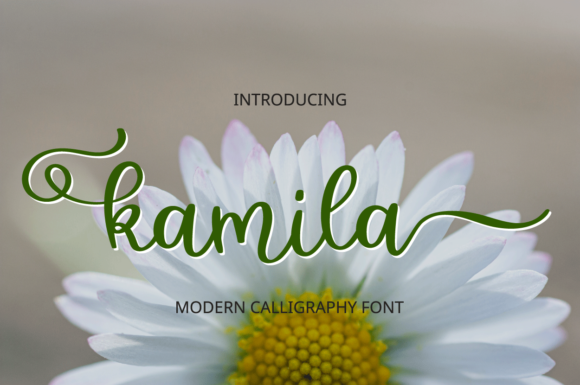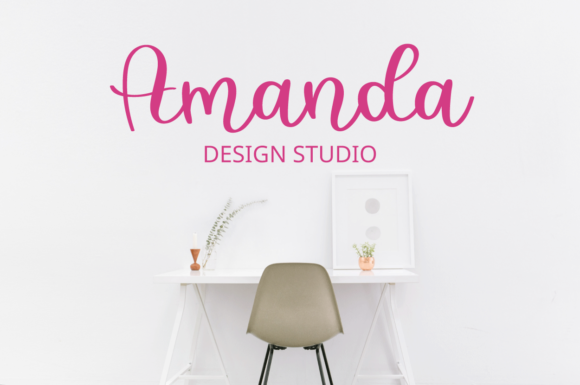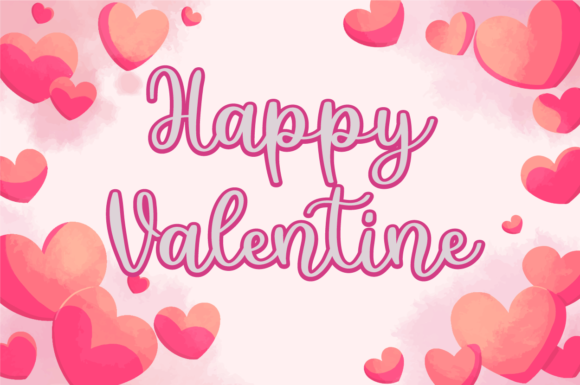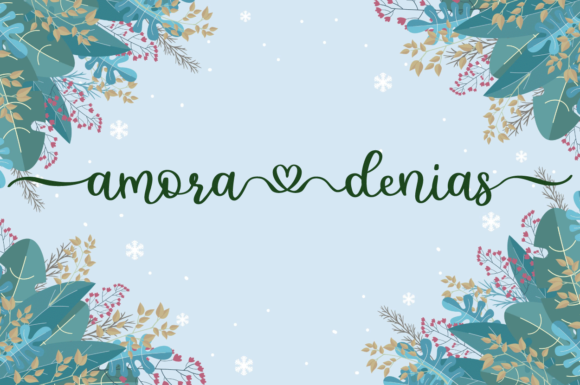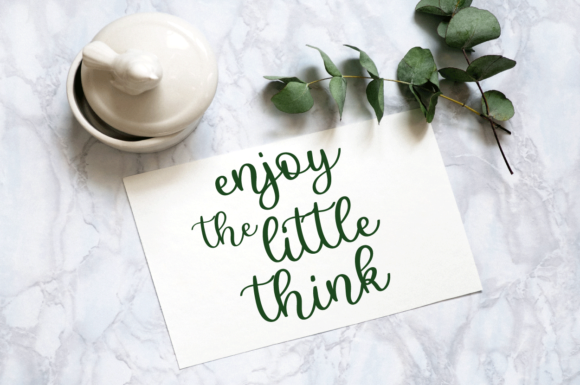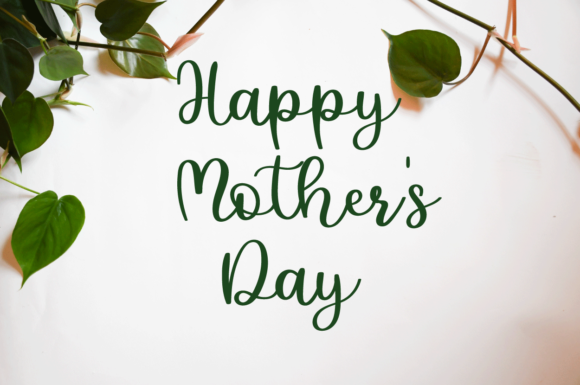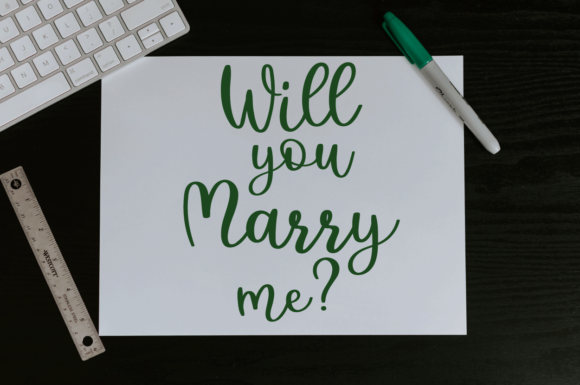
Kamila Font
About Kamila Font
Kamila is a delightful and dainty script font that exudes charm and elegance. With its smooth and graceful letterforms, this font adds a touch of sophistication to your creative projects. The PUA encoding of Kamila ensures easy access to all of its glyphs and swashes, allowing you to effortlessly customize and enhance your designs.
Whether you’re working on invitations, logos, branding, social media graphics, or any other creative endeavor, Kamila will elevate your designs and bring them to life. Its flowing and delicate strokes create a sense of movement and grace, adding a touch of beauty and refinement to your typography.
The extensive set of glyphs and swashes available in Kamila provides you with a wide range of design options. You can easily create unique and eye-catching compositions by accessing alternate characters, ligatures, and decorative elements. This allows you to infuse your designs with personal flair and make them truly one-of-a-kind.
Kamila is designed with readability in mind, ensuring that your messages are effectively communicated to your audience. Each character is carefully crafted to maintain legibility, even at smaller sizes. This makes Kamila a versatile choice for various applications, from elegant wedding invitations to eye-catching social media posts.
Embrace the sweetness and daintiness of Kamila in your creative projects, and watch as it brings an air of sophistication and beauty. Whether you’re aiming for a romantic aesthetic, a feminine touch, or simply a graceful design, Kamila is the perfect choice to add that extra charm.
In summary, Kamila is a sweet and dainty script font with a lovely flow. Its PUA encoding grants you easy access to a wide range of glyphs and swashes, enabling you to customize and enhance your designs effortlessly. Add Kamila to your favorite creative ideas and witness how it brings elegance and sophistication to your typography.